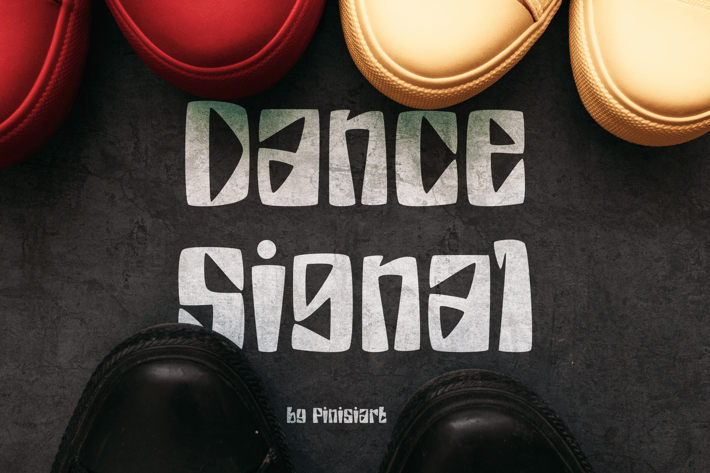
Dance Signal - Display Font
Its unique shape remind us about the vibrant 70s and 80s era where we are all happy and love to dance.
The Dance Signal will bring those vibes to your projects, and make it pop above others.
Suit perfectly for mature and provocative and encouraging themes books market, economic poster, stationary, school supplies font, youtube covers, youtube thumbnails, social media page covers and so on...